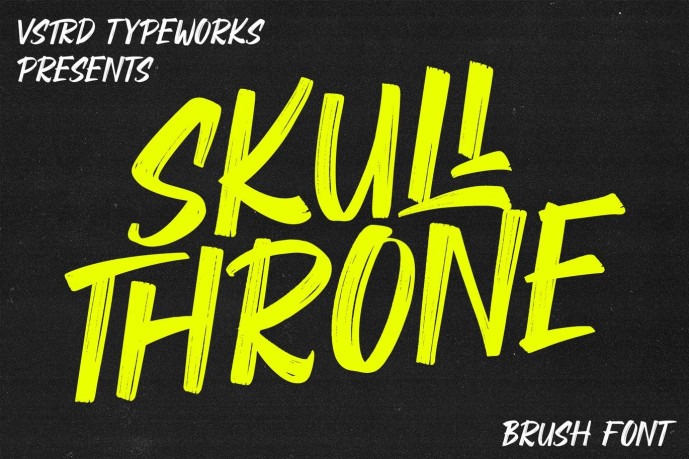
Skullthrone Font
Skullthrone Font a striking hand-painted typeface designed to dominate any design. Crafted with raw brushstrokes and an uncompromising attitude, Skullthrone delivers strong, expressive lettering that commands attention. Ideal for posters, streetwear brands, album covers, social media graphics, and impactful quotes, this font brings a rebellious edge and unstoppable movement to your work. If your design needs impact, originality, and bold style, Skullthrone is ready to take center stage.